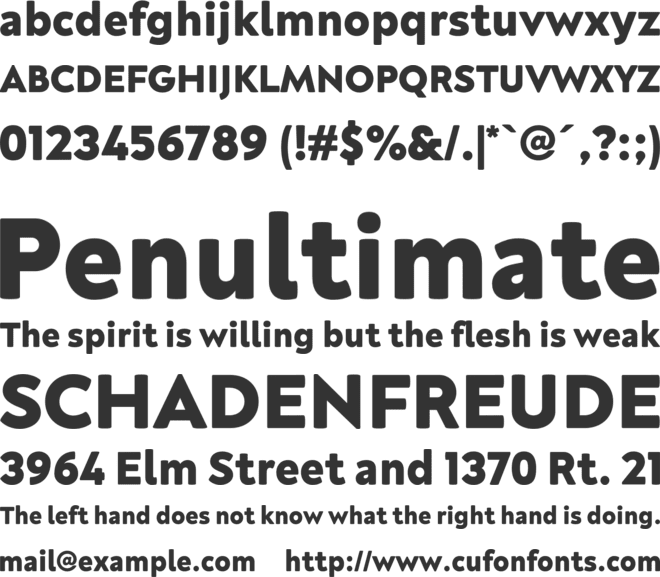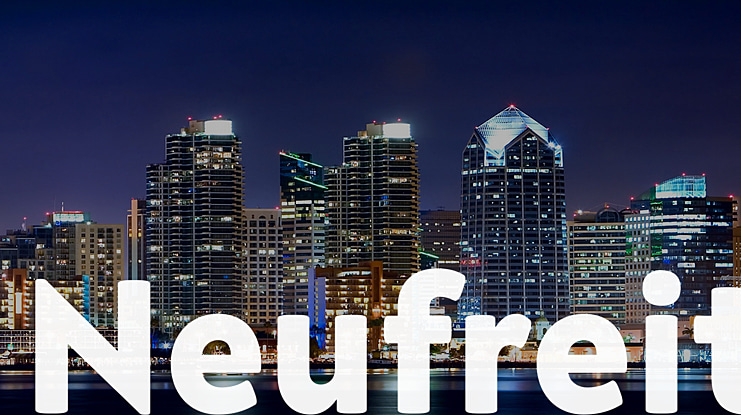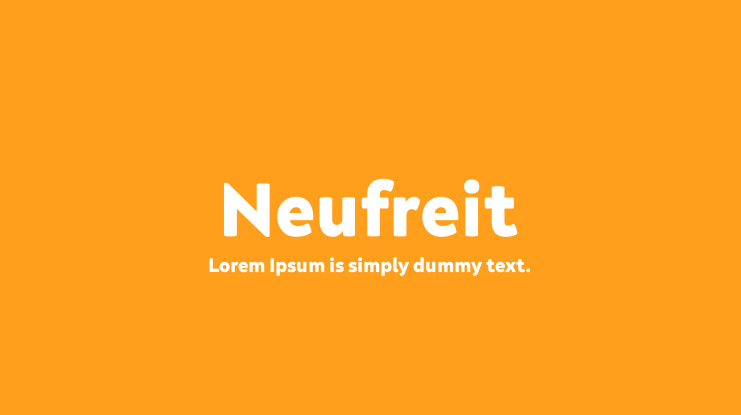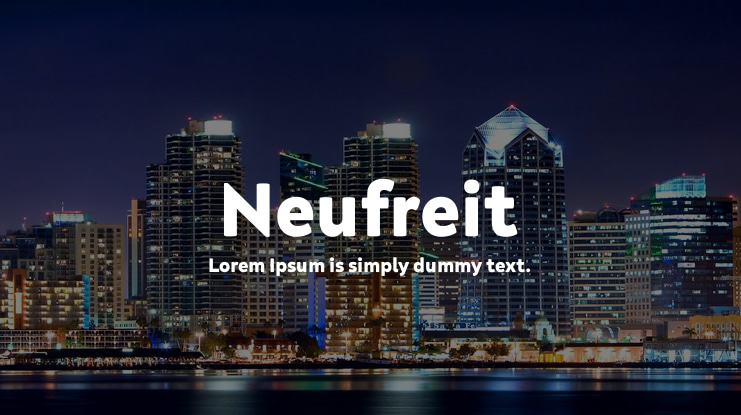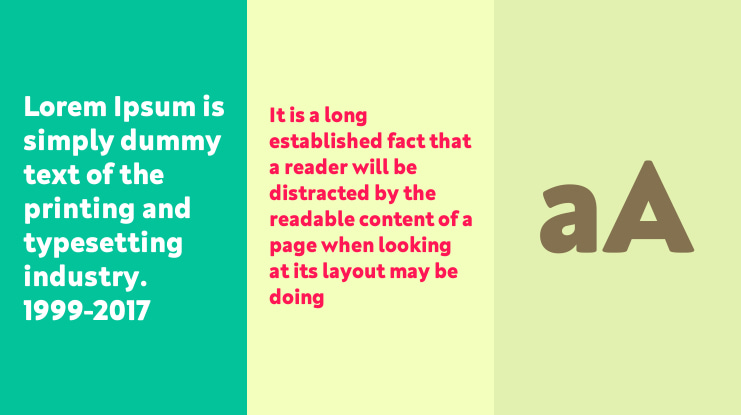
Neufreit Font
Wahyu S. Adi Wibowo
Introducing Neufreit, the younger brother of Creo (https://www.myfonts.com/fonts/wahyu-sani-co/creo/ ), but softer and finer proportion with sharper apex & vertex. It comes in 9 weights with matching italic styles, starting from ExtraLight to Heavy as the heaviest weight.
This family is equipped with useful OpenType features such as Ordinals, Superiors, Stylistic Sets, Tabular Figures, Standard Ligatures, Fractions, Numerators & Denominators. Each font has 500+ glyphs which covers Western & Eastern Europe, and other Latin based languages – over 200 languages supported!
Neufreit will be suitable for many creative projects. This distinctive typeface that will be perfect for logos, packaging, greeting cards, presentations, headlines, lettering, posters, branding, quotes, titles, magazines, headings, web layouts, mobile applications, art quotes, advertising, invitations, packaging design, books, book title, and more.